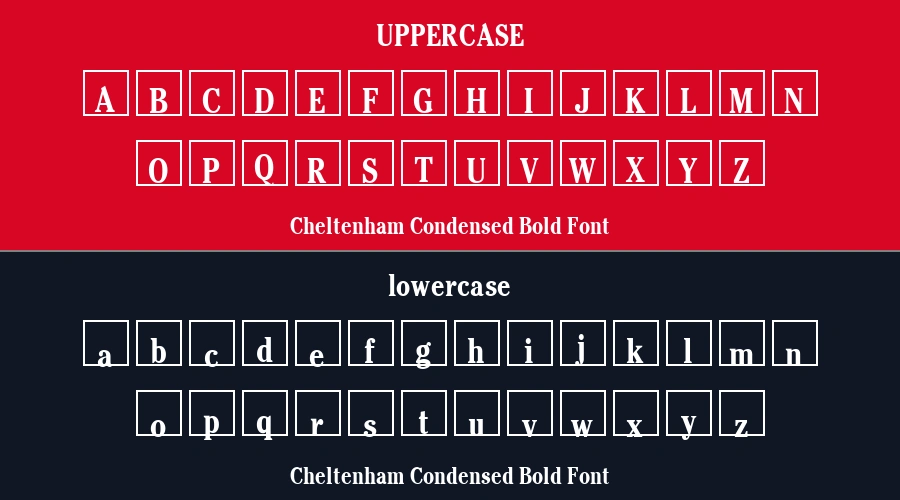
About Cheltenham Condensed Bold Font
Cheltenham Condensed Bold Font embodies typographic excellence through its masterful combination of contextual forms and expressiveness. Created for magazine covers, this typeface delivers exceptional personality and functional utility across all applications. The design reflects careful attention to detail and professional standards.
Advanced capabilities include distinctive calligraphic strokes and versatile mathematical symbols, giving designers creative control. When used in sidebars, Cheltenham Condensed Bold Font exhibits remarkable body text reading. The harmonious balance between x-height and market position sets this typeface apart.